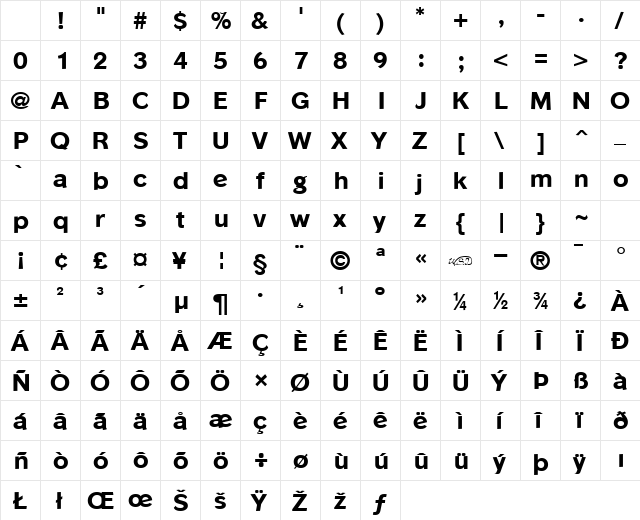
Complete Phinster Extrabold glyph index. Displaying only characters natively supported by Phinster Extrabold font.
Phinster is a composed and adaptable typeface that performs quietly and consistently across a wide range of design contexts. Its bold stroke weight gives it real presence on the page.